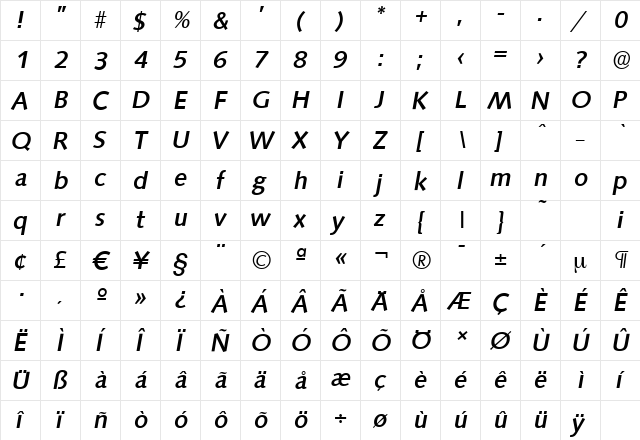
SaxonySerial-Medium Italic
Design Context for SaxonySerial-Medium Typeface
SaxonySerial-Medium takes a measured approach to typography — its balanced proportions and neutral character make it a reliable workhorse for both digital and print work. The slanted form adds forward momentum and visual energy.
Pro Tip: Try SaxonySerial-Medium for annotation and caption copy alongside an upright companion — the contrast in angle creates a dynamic but ordered typographic system.